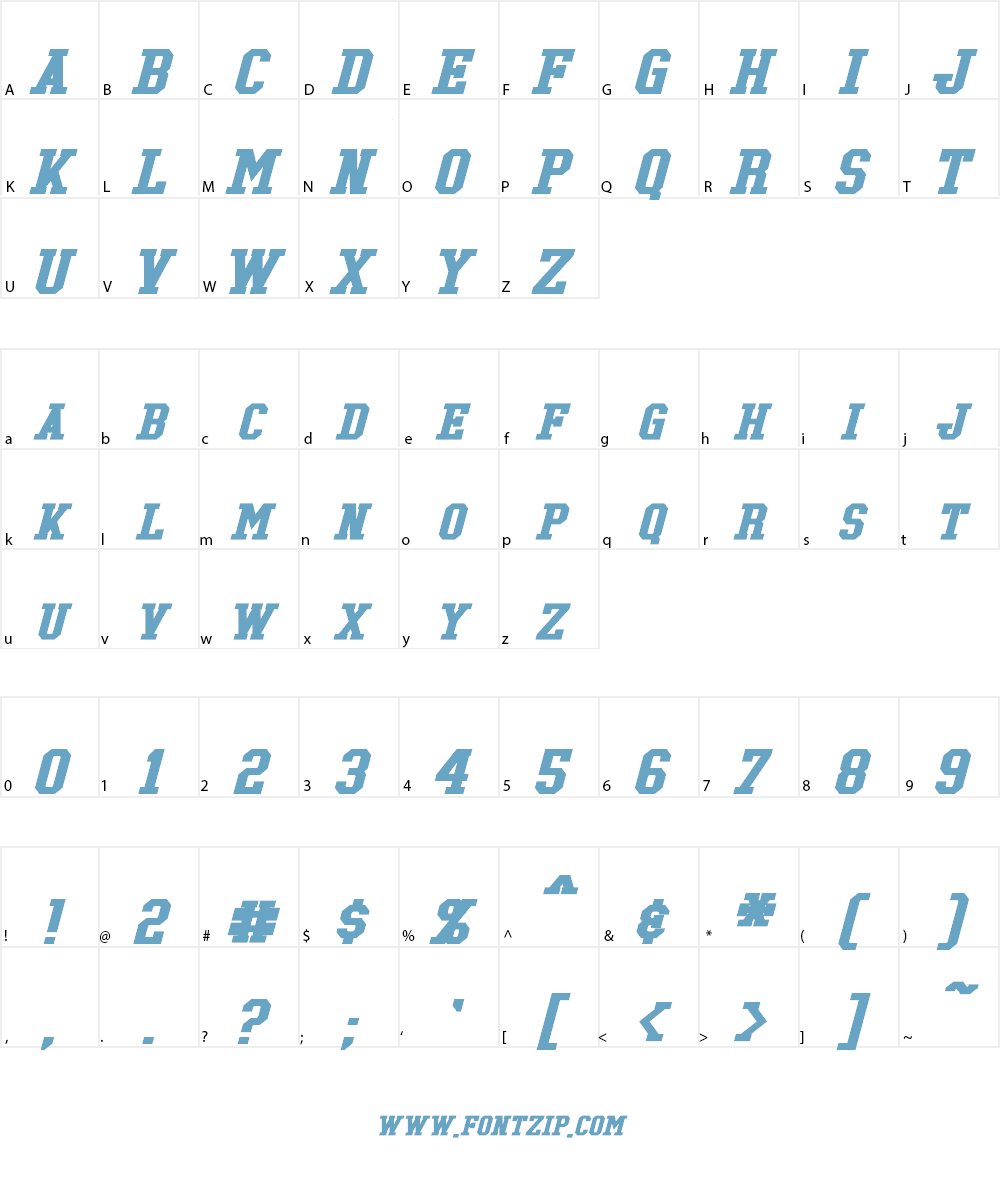
This font is about as basic as Western-themed fonts get. Simple, straight, and boxy, with very heavy serifs. Includes numerals, punctuation, accent characters, and Euro. Includes Hollow and Italic version.